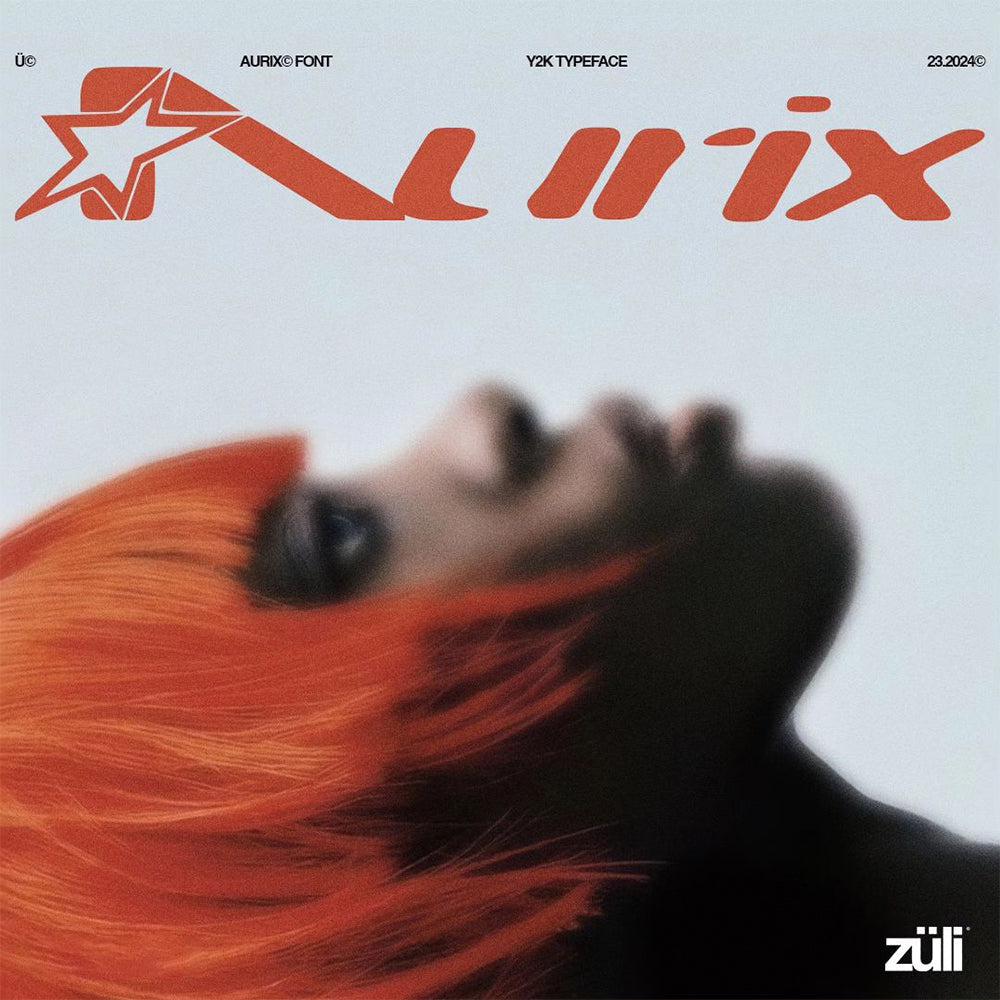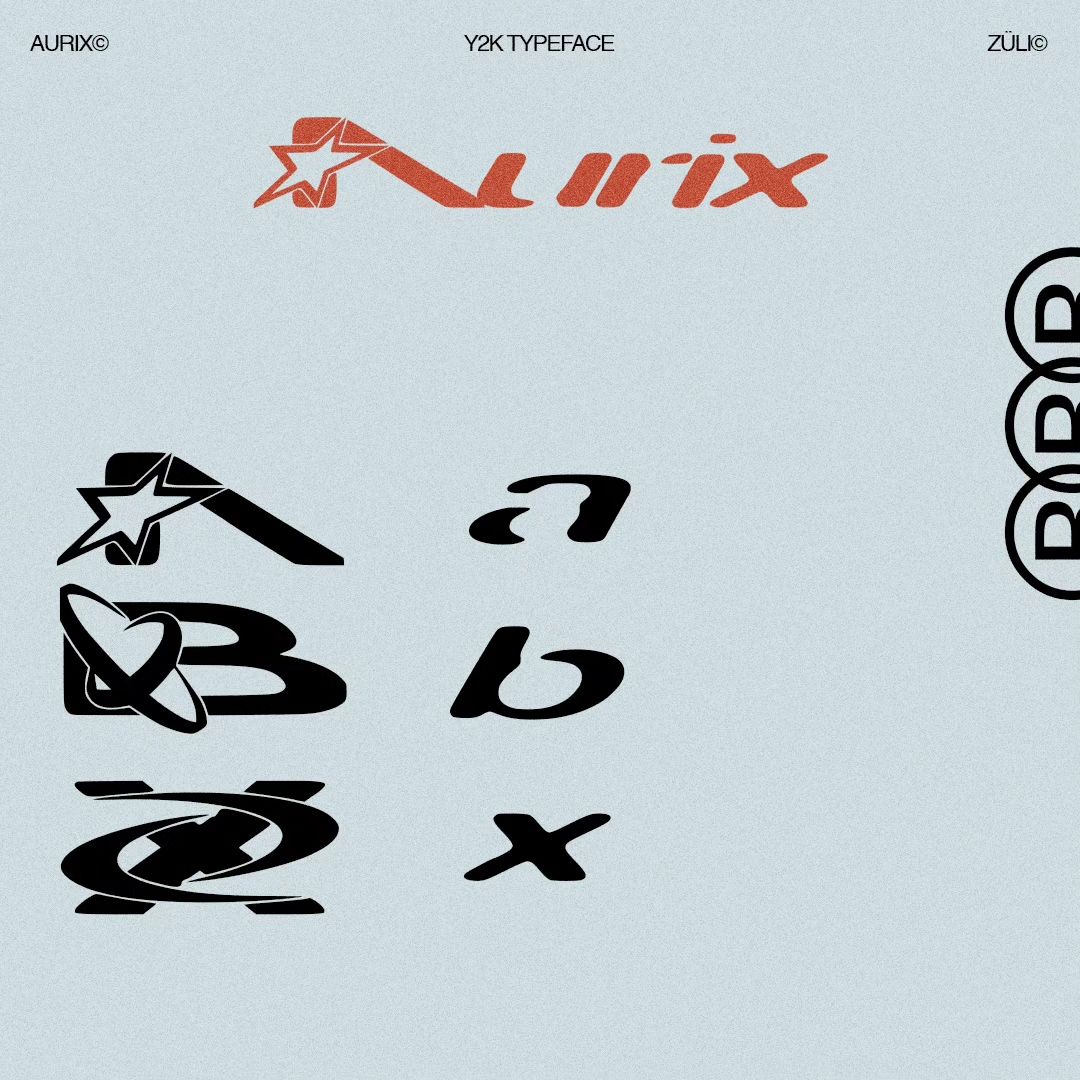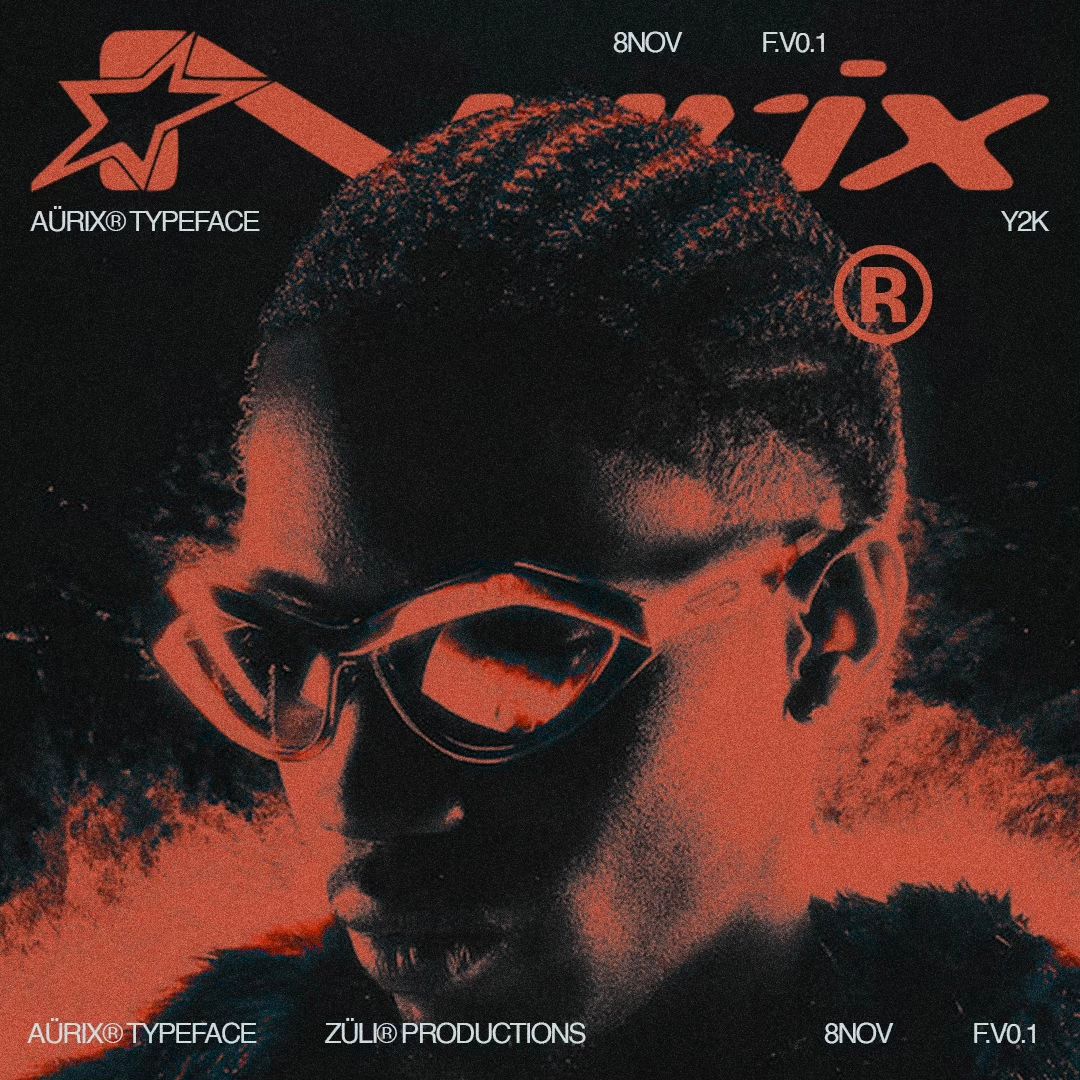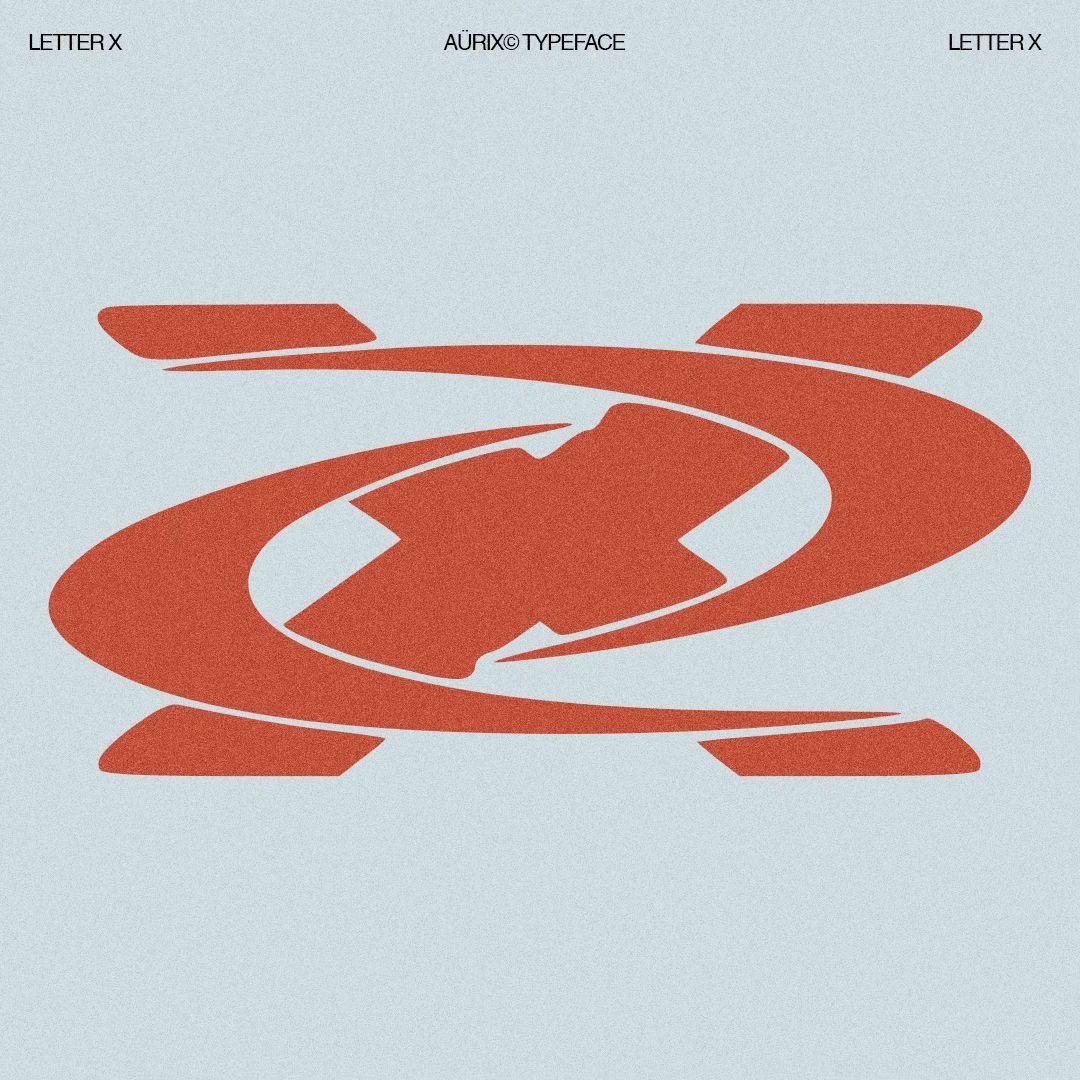
Aürix - Y2k Typeface
Font Features:
• The font is in Y2k Style
• Capital alphabets has a Y2k shapes "Ready for use"
The Aürix - Y2k Typeface is a ready-to-use font featuring Y2k style capital alphabets that can be easily incorporated into any design without the need for editing.